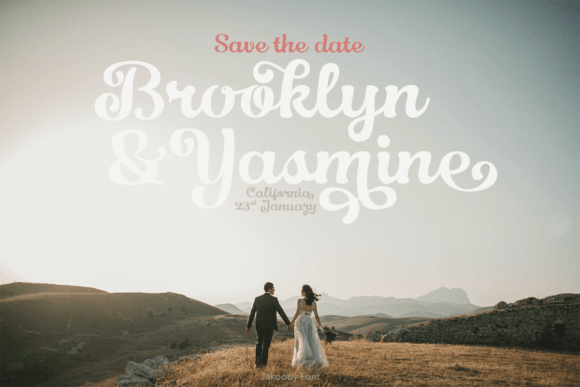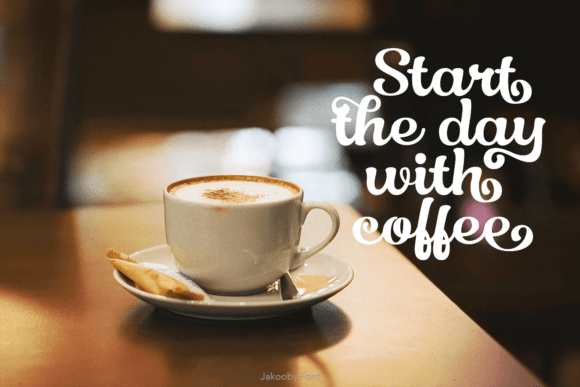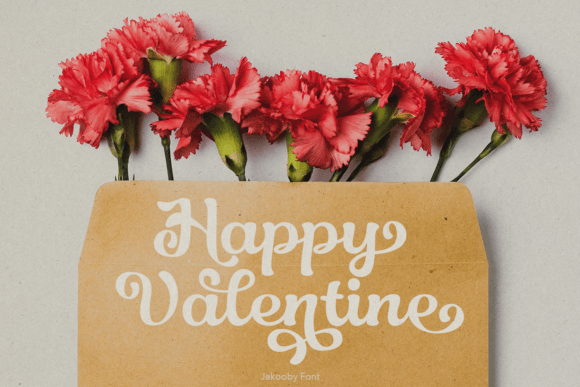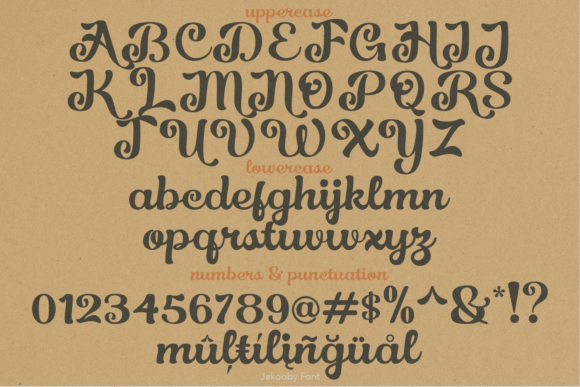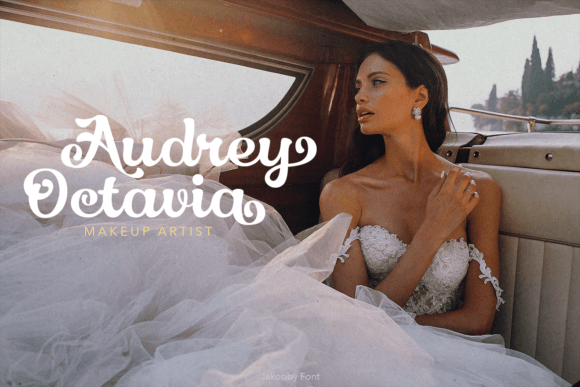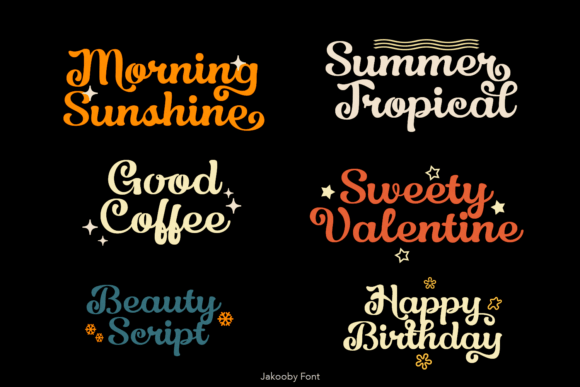
Introduction to Jakooby Font
Have you ever stared at a blank page, waiting for inspiration to strike, only to find yourself drawn to the world of typography? I know I have. For designers, the hunt for the perfect font is a never-ending quest, and the discovery of a new, high-quality design resource can be a game-changer.
That’s exactly what happened when I stumbled upon the Jakooby Font – a stunning retro script font that’s perfect for creative projects. With its curly style and abundance of alternatives and ligatures, this font is a design dream come true. Whether you’re working on a poster, book cover, or wedding invitation, the Jakooby Font is sure to add a touch of elegance and sophistication.
One of the things that sets the Jakooby Font apart is its versatility – it’s available for free download, making it an accessible design resource for designers of all levels. Plus, its transparent background allows for seamless integration into any design project. With the Jakooby Font, the possibilities are endless, and we can’t wait to explore its many uses.
Key Features of Jakooby Font
- Unique Hand-Drawn Style: The Jakooby Font features a distinctive hand-drawn design, perfect for creative projects requiring a personal touch.
- Perfect for Creative Projects: The Jakooby Font is ideal for use in creative projects, such as logos, branding, and advertising, where a unique and eye-catching design is required.
- Design Resource: This font is a valuable addition to any designer’s collection, offering a versatile and stylish solution for a wide range of design applications.
Honest Review: Jakooby Font
I recently had the chance to work with the Jakooby Font for a creative project and I must say, I was impressed with the overall quality and design. ✨ The font is perfect for adding a touch of elegance to any design, and its high quality makes it stand out from other free downloads.
Here are some of the things that work well with the Jakooby Font:
- It has a transparent background, making it easy to layer over other design elements.
- The font is highly customizable, allowing you to adjust the size, color, and style to fit your project’s needs.
- The font may not be as versatile as some other high-end fonts, but it still gets the job done. ⚠️
- The font’s unique style may not appeal to every designer or project.
Overall, I would highly recommend the Jakooby Font for any design project that requires a touch of sophistication and elegance. It’s a valuable design resource that’s definitely worth considering.
Using in Creative Projects
The Jakooby Font is perfect for use in creative projects, such as logos, graphics, and typography-based designs. Its unique style and transparent background make it an ideal choice for designers looking to add a touch of elegance to their work.
Tips for Getting the Most Out of Jakooby Font
To get the most out of the Jakooby Font, try experimenting with different font sizes, colors, and combinations. You can also use the font’s transparent background to create a sense of depth and dimension in your designs.
The Jakooby Font is commonly used in a range of creative projects, including branding, advertising, and editorial design. Its unique style and high-quality design make it an ideal choice for designers looking to create eye-catching and memorable designs.